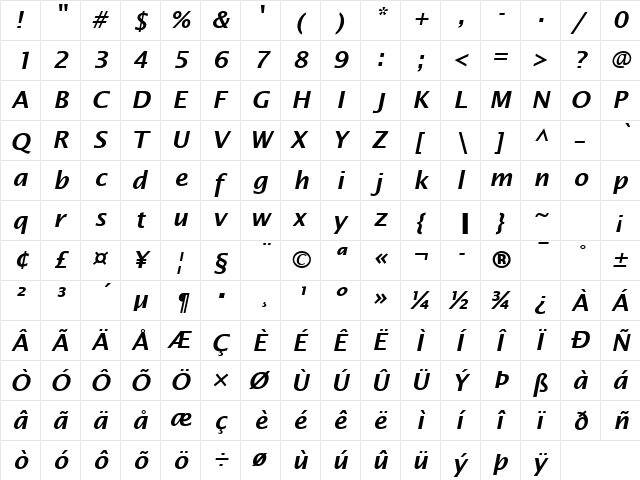
Lucida Becker Sans Demi Italic
Design Context for Lucida Becker Sans Demi Typeface
Lucida Becker Sans Demi takes a measured approach to typography — its balanced proportions and neutral character make it a reliable workhorse for both digital and print work. Its italic angle brings a sense of urgency and motion to the letterforms.
Pro Tip: Try Lucida Becker Sans Demi for annotation and caption copy alongside an upright companion — the contrast in angle creates a dynamic but ordered typographic system.